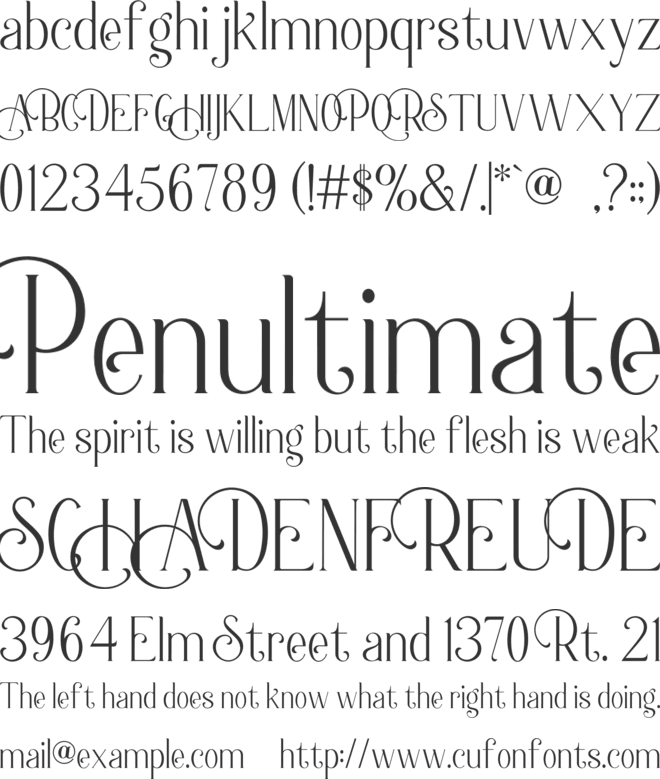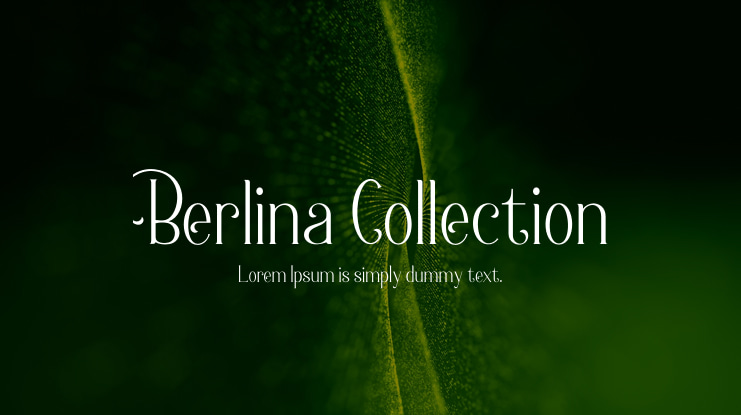
Berlina Collection Font
Berlin Collection Font is an elegant serif font designed with full and high accuracy to create a classy font style. It perfectly represents luxurious yet elegant in a modern and minimalist way.